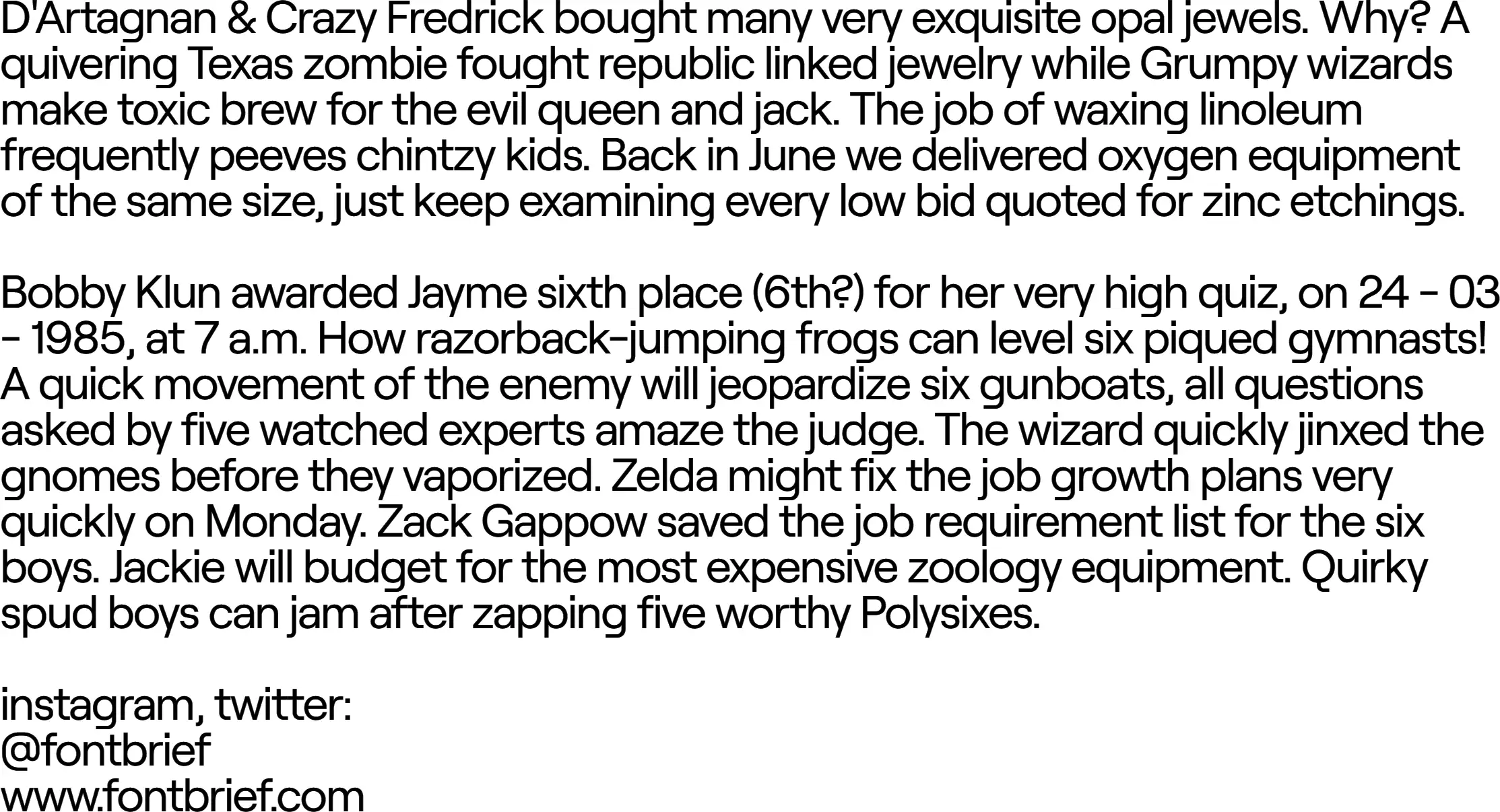
Roobert
Roobert is a mono-linear geometrical sans-serif font family. Initially designed in collaboration with Anymade Studio as a bespoke typeface for Moogfest 2017 (see Roobert MF project). The basic and simple idea comes from the Moog logotype. Where you can find characteristic “g” with the rounded corner in the bottom part. These specific moments you can find in Roobert typeface e.g. in “a, g, r, alternative t, G, R and so on”. Feeling from the typeface could be “rounded square” like in Eurostyle, but it’s definitely not like that. Italics are kind of semi slanted in some parts of selected letters, see “t, g, r”.
Because the typeface was originally designed for Moog Festival it’s named after Robert Moog. Robert Arthur Moog (1934—2005), the founder of Moog Music, was an American engineer and pioneer of electronic music, best known as the inventor of the Moog synthesizer. During his lifetime, Moog founded two companies for manufacturing electronic musical instruments. His innovative electronic design is employed in numerous synthesizers.